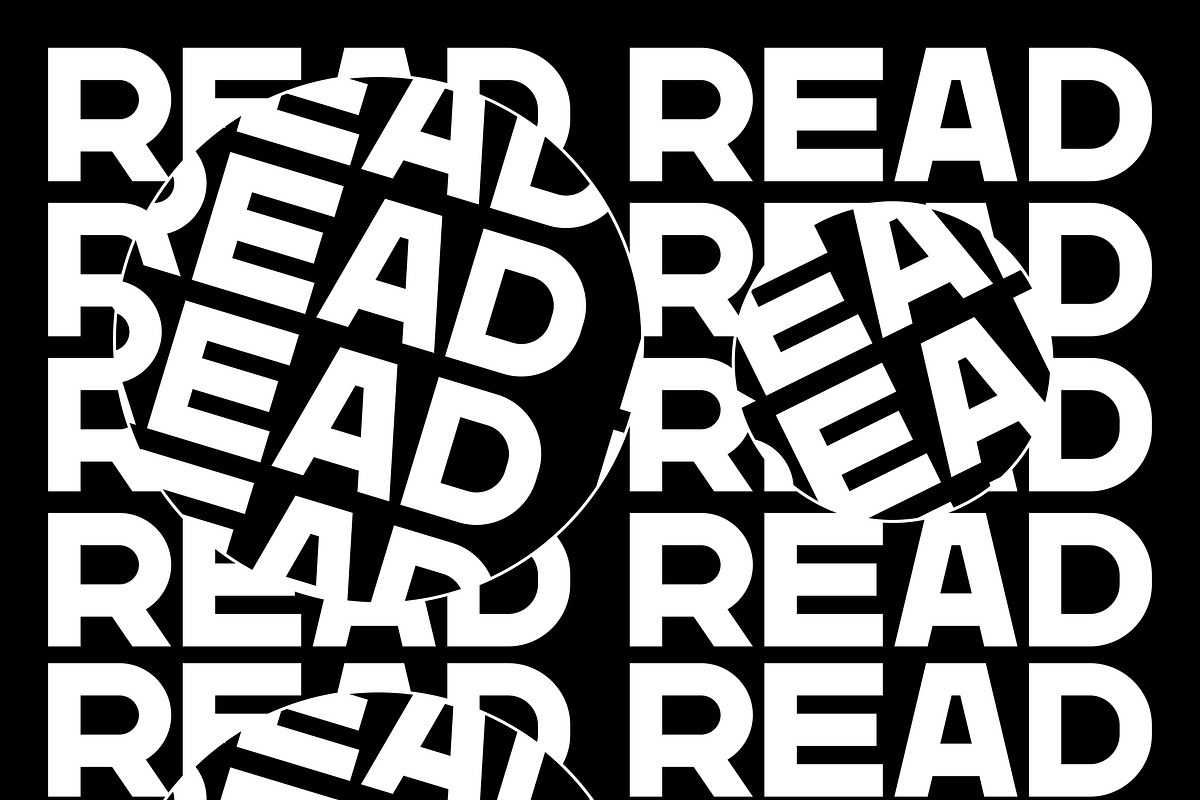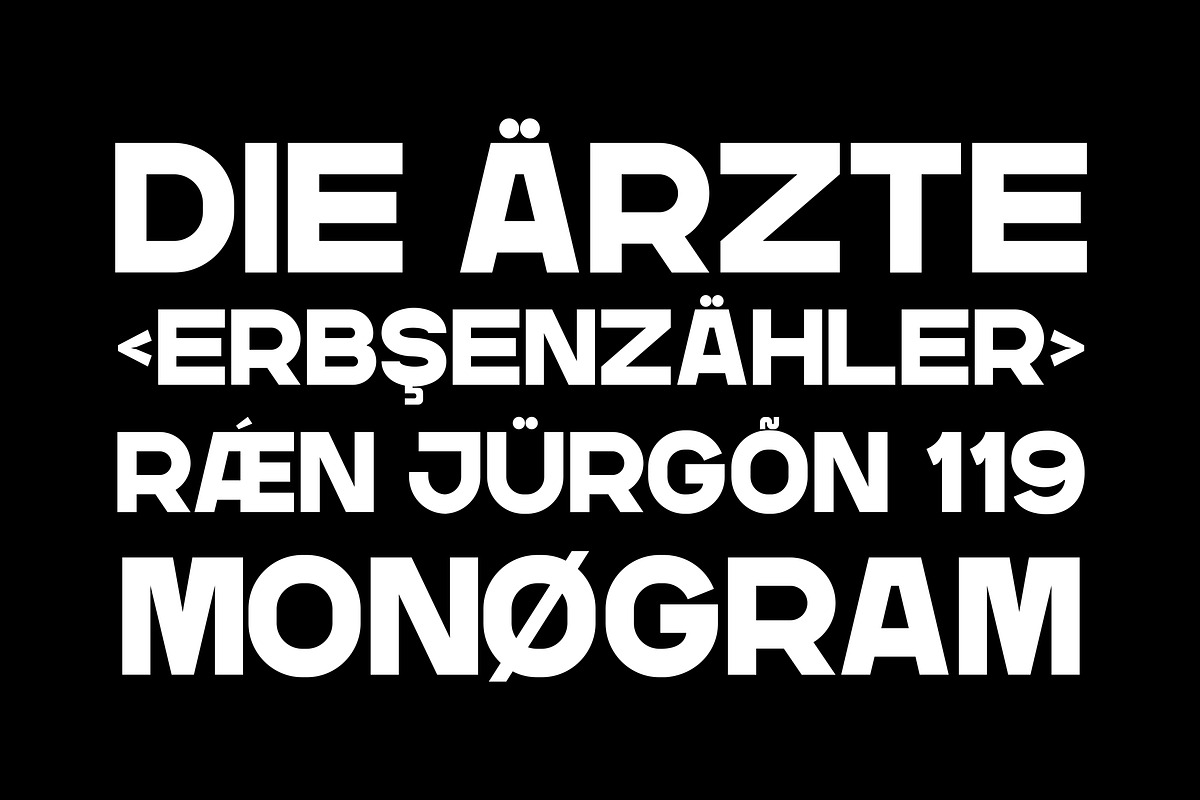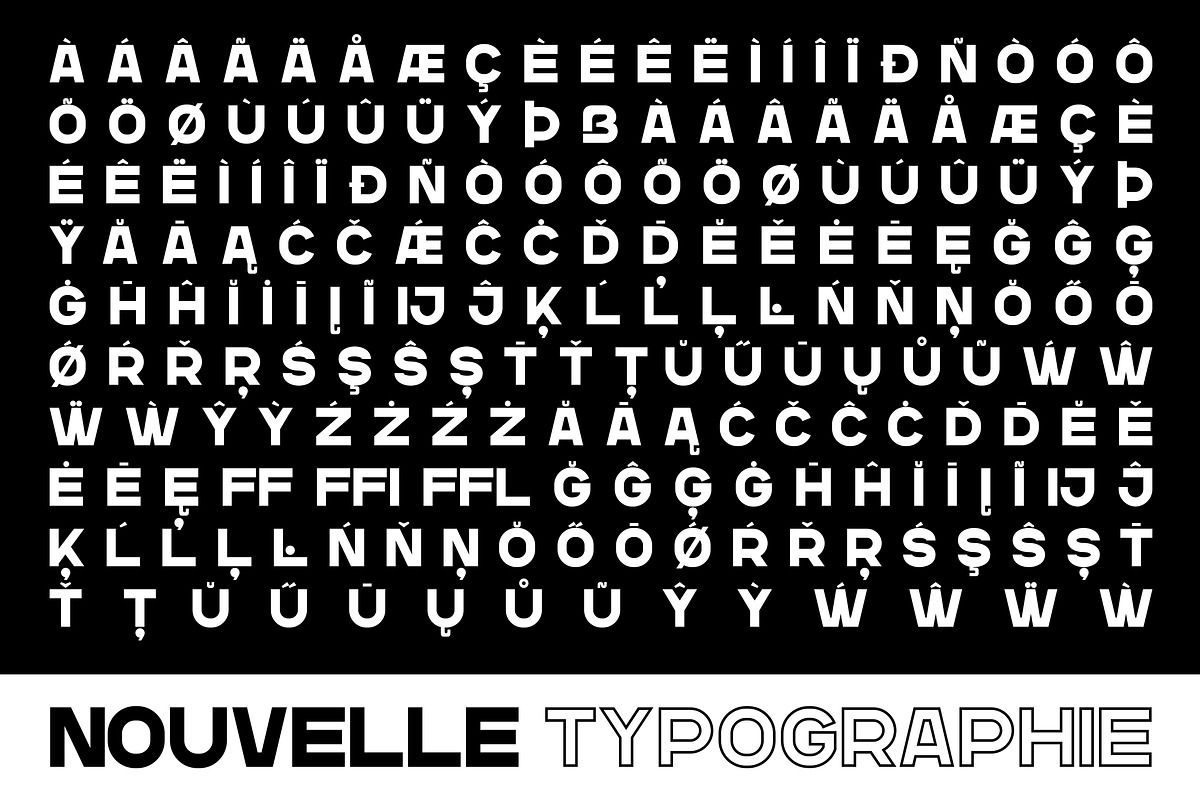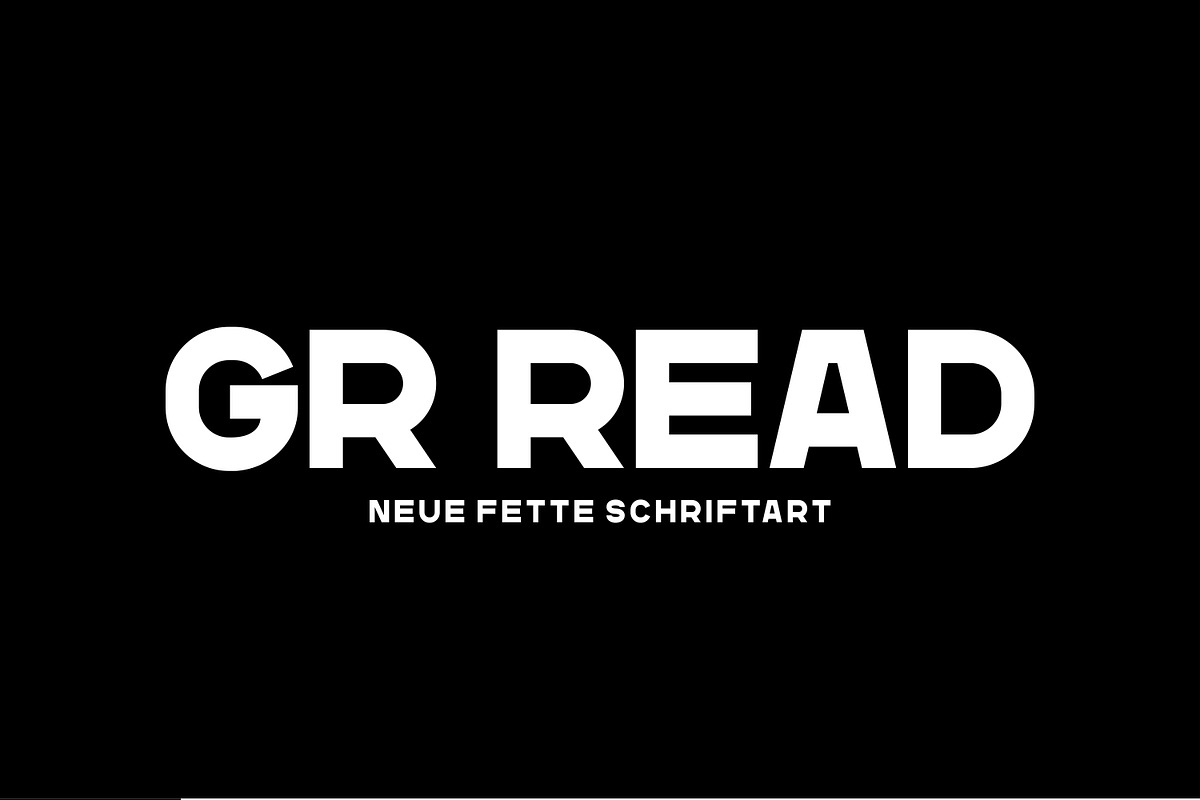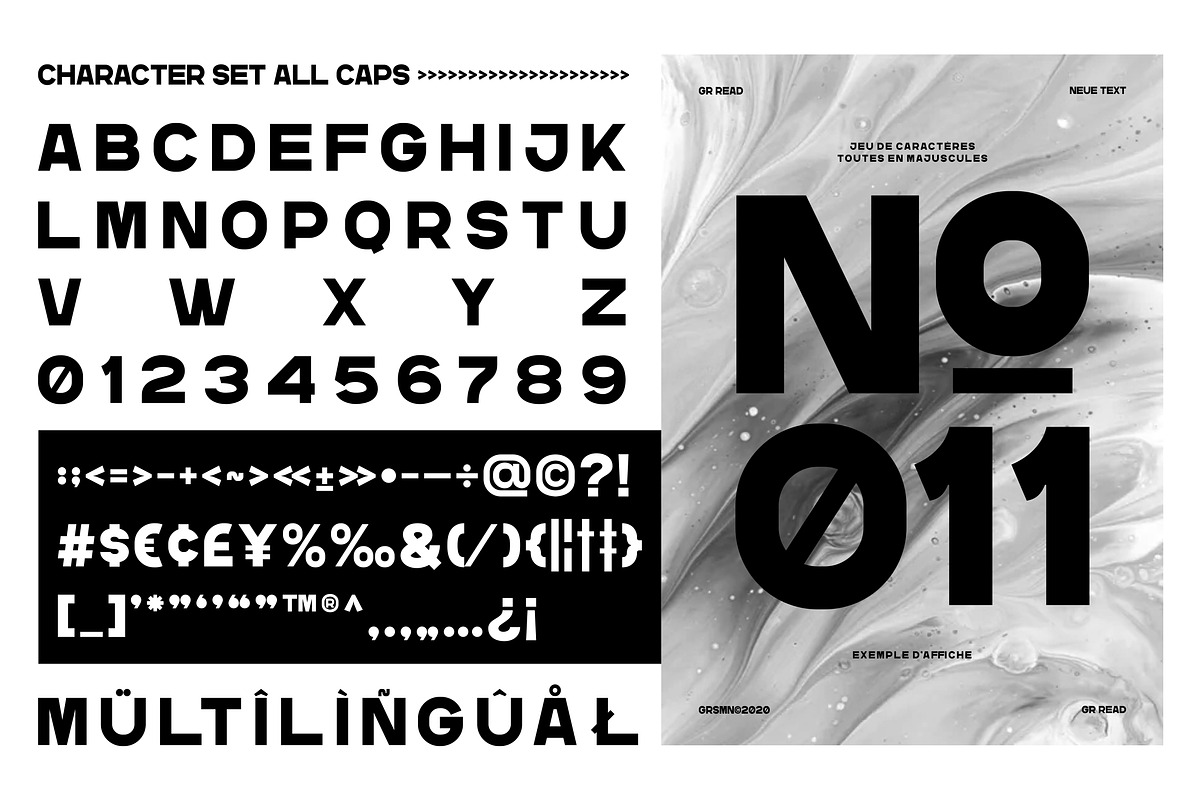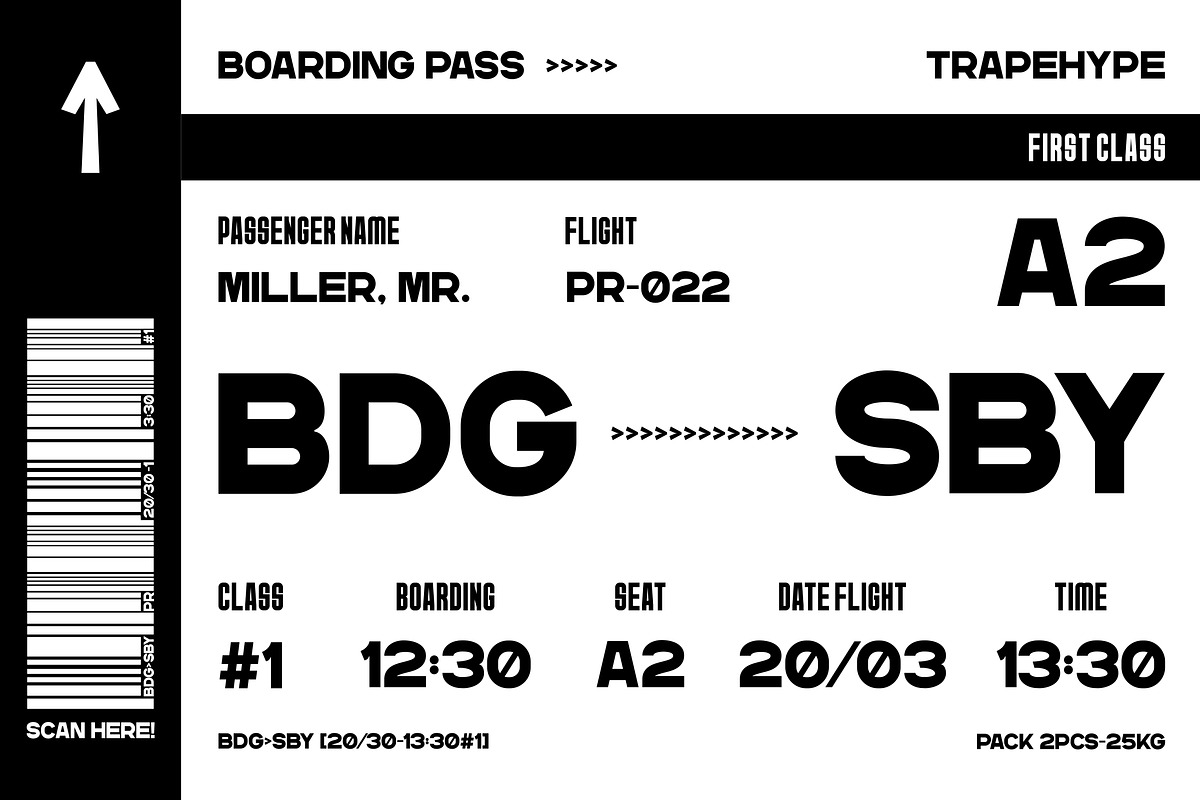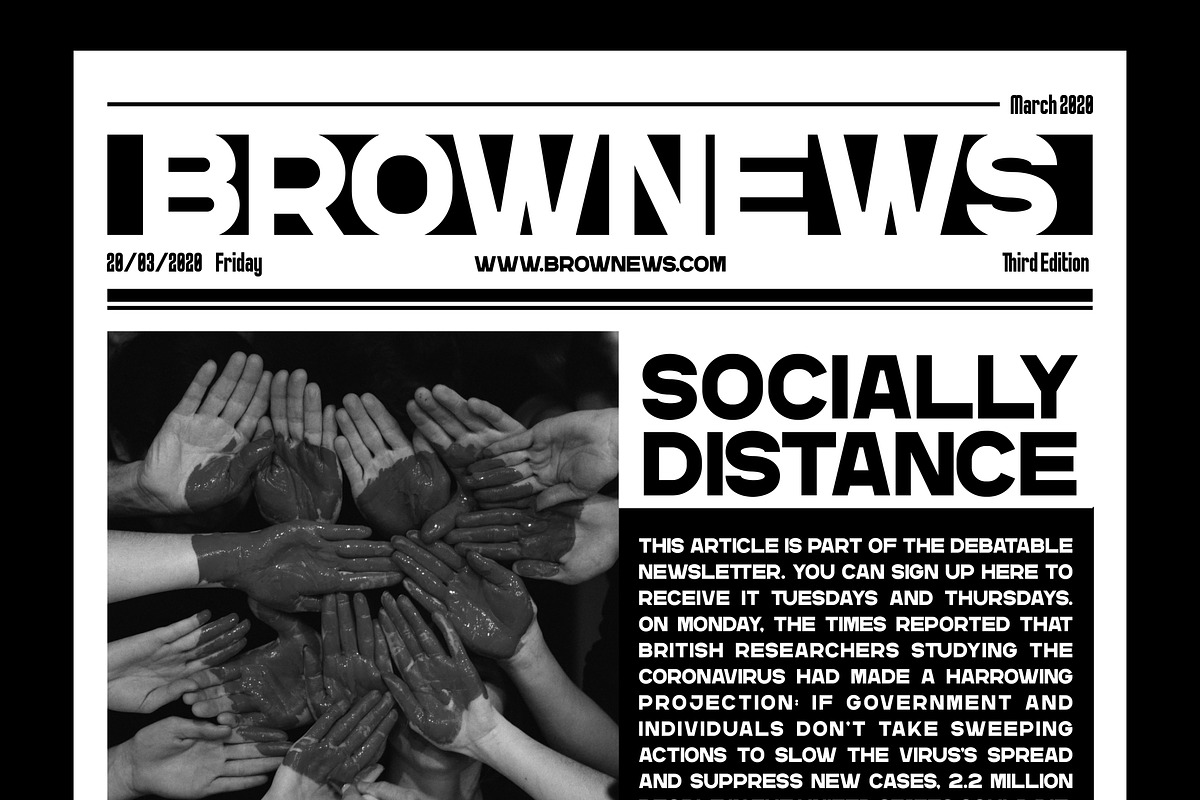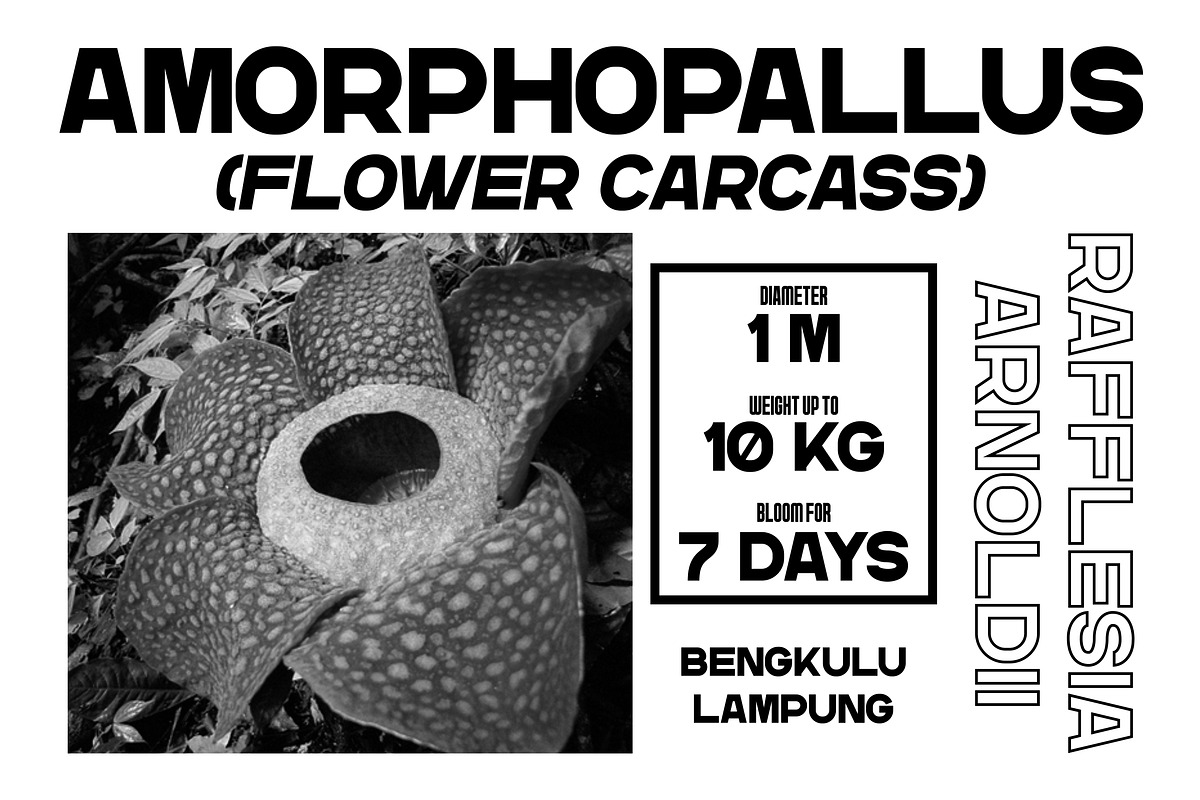
GR Read - Headline Typeface
GR Read - Headline Font
GR Read is a very cool font for headline designs with a bold and bold theme. With a strong display and clean nodes make text in the design become more character and great. Inspired by headline trends in a poster or magazine today. So that with a firm and a very modern style makes your design better!
This font is formed from the headline display font of a very careful title. GR Read has about 350 flying machines. Suitable for all graphic design projects, prints, logos, posters, t-shirts, packaging, website, ticket and applies to several types of graphic design. Especially for the use of a title! Very suitable! GR Read is compatible with any software without pain, especially in headlines with GR Read pairing
2 Styles with slant (Regular & Outlined)
Multi-Language Support with an accent (support for 26 languages): Afrikaans Albanian Catalan Croatian Czech Danish Dutch English Estonian Finnish French German Hungarian Icelandic Italian Lithuanian Maltese Norwegian Polish Portuguese Slovak Slovenian Spanish Swedish Turkish Zulu Work on PC and MAC (tested)
Numeral and Punctuations